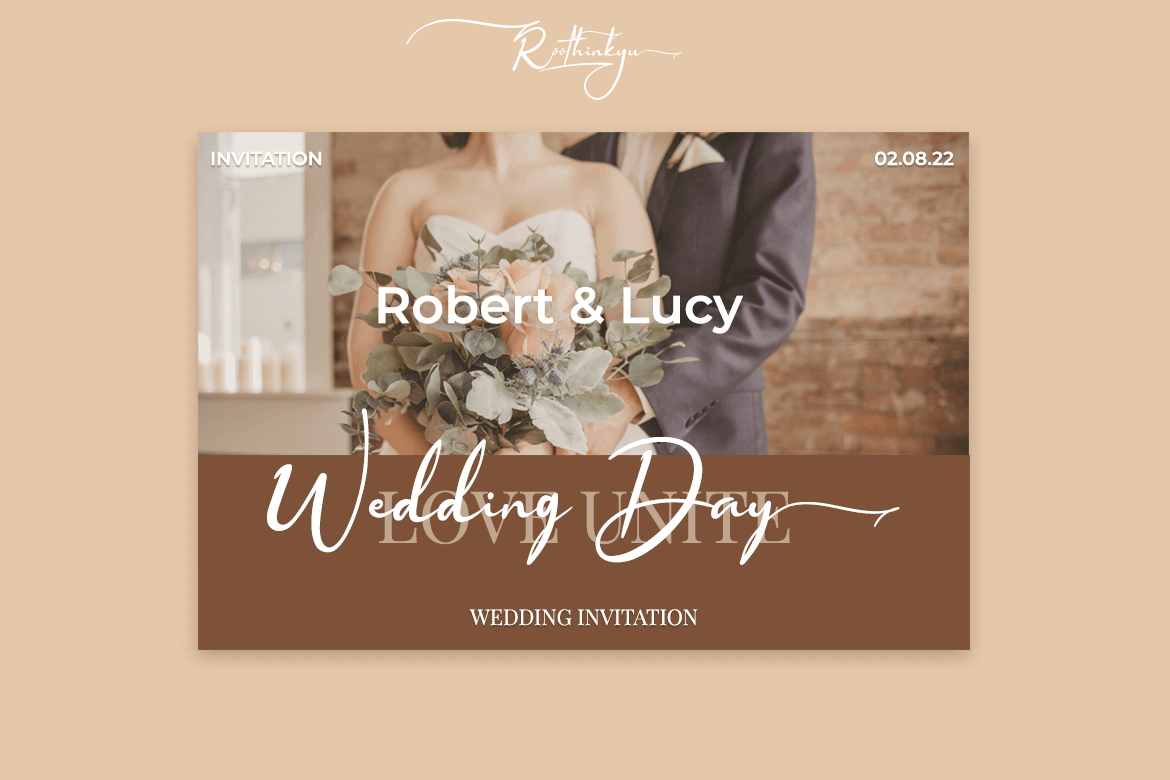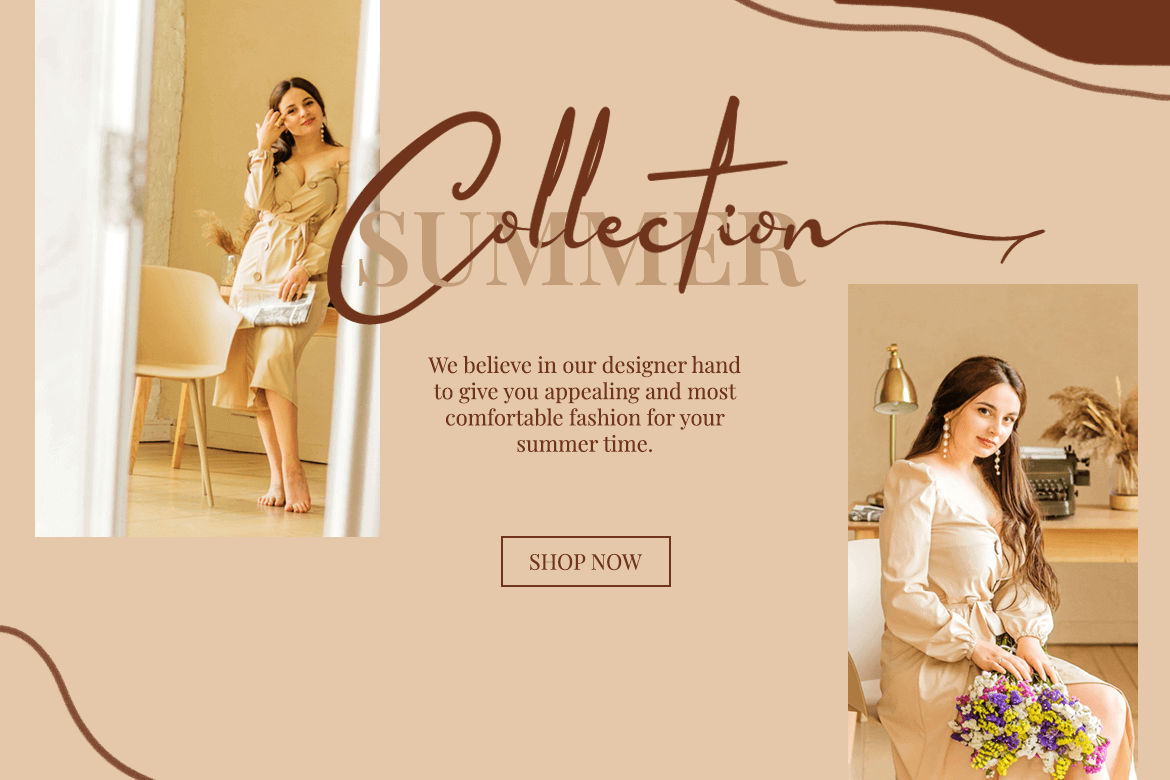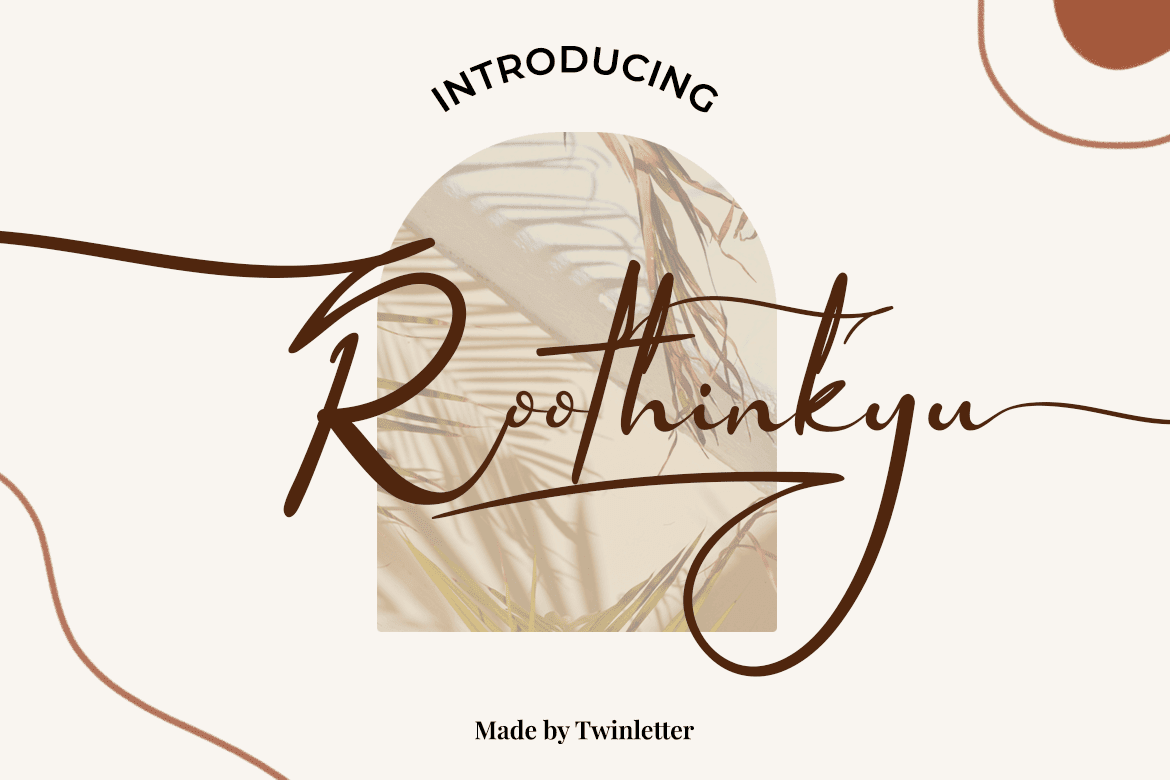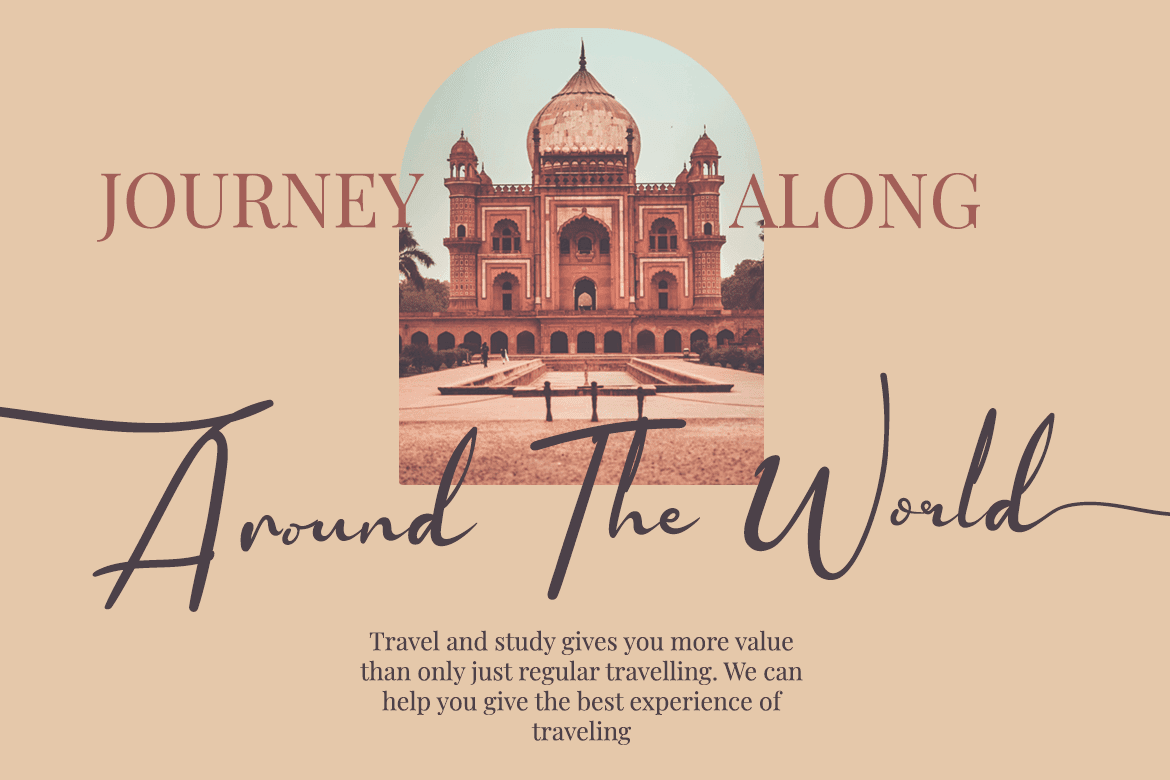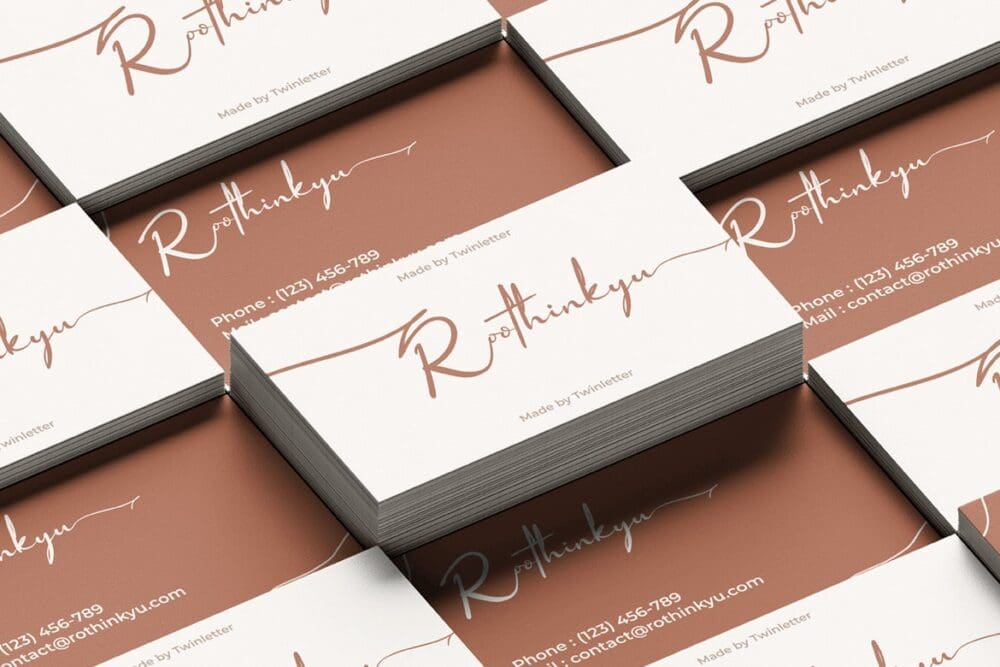
Roothinkyu Font
Roothinkyu is a Signature Font with modern and elegant styled writing, with a natural and aesthetic flow. This font has a dazzling shape when applied to your various projects, both for branding and your various creative needs.